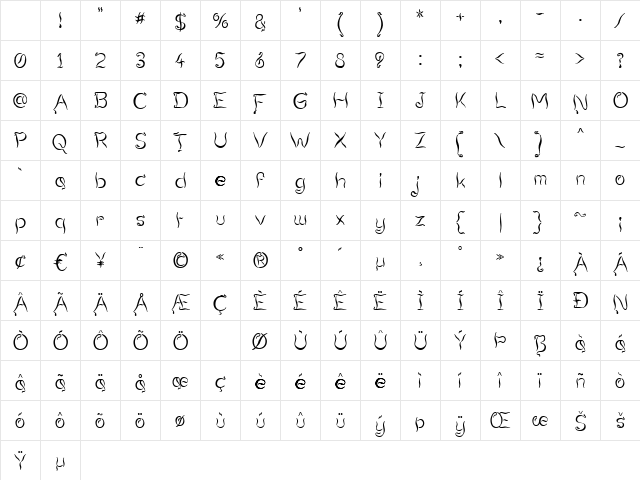
Complete Smoking Tequila Regular glyph index. Displaying only characters natively supported by Smoking Tequila Regular font.
Smoking Tequila is a composed and adaptable typeface that performs quietly and consistently across a wide range of design contexts.